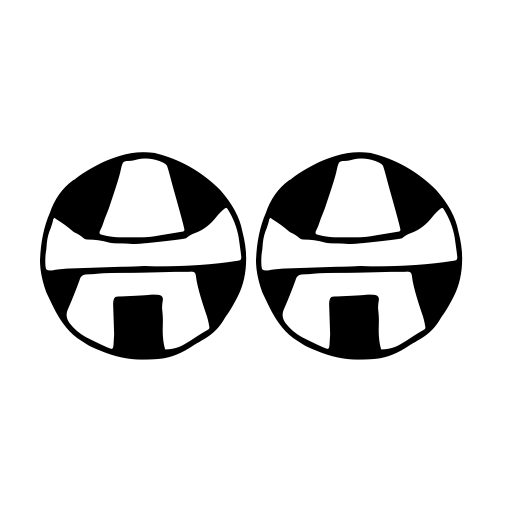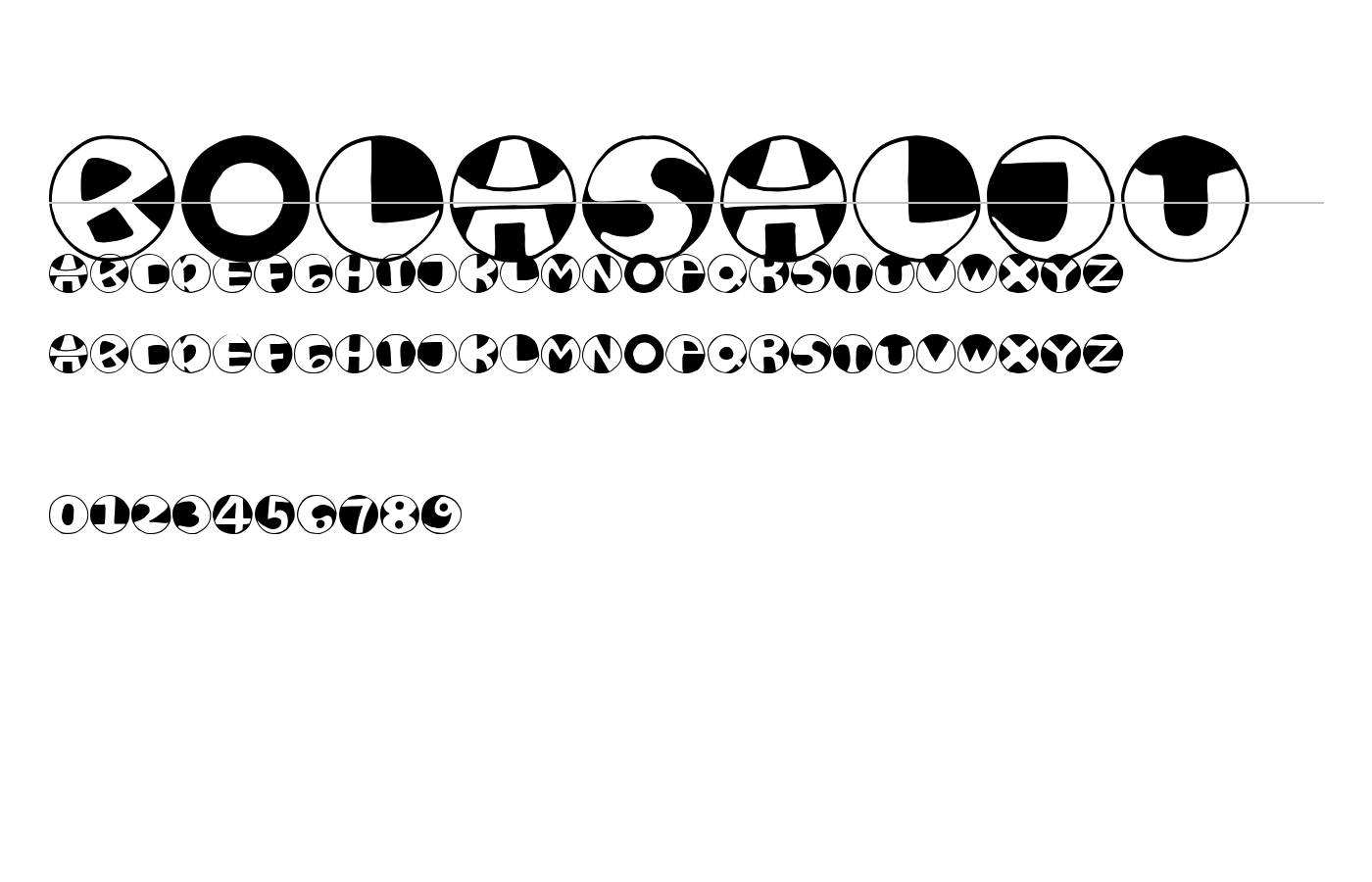
BOLASALJU is a bold, playful display font with a distinctive geometric style, featuring letters enclosed in circles with contrasting black and white shapes that create a dynamic, eye-catching effect. Its quirky, hand-drawn feel and strong visual presence make it ideal for fun, creative projects such as logos, posters, and headlines where a unique and energetic personality is desired. This font works best in large sizes where its decorative details can stand out and add a lively, modern touch.
BOLASALJU Font